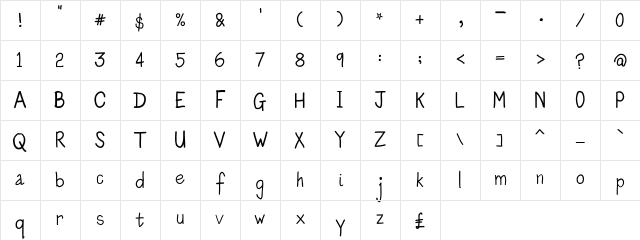
Kids Scrawl Regular Free Font
Kids Scrawl Regular
Designer: Bree Gorton
Design Context for Kids Scrawl
Kids Scrawl has an approachable, lighthearted character - its loose, expressive forms are well-suited to children's content, casual branding, and fun-first design.
Font Pairing: Pairs well with a rounded or humanist sans for body copy, maintaining the friendly tone without relying on Kids Scrawl to carry extended reading.
Pro Tip: Use Kids Scrawl at larger display sizes where its expressive character can land. Pair with a clean, simple sans for body copy to maintain readability.